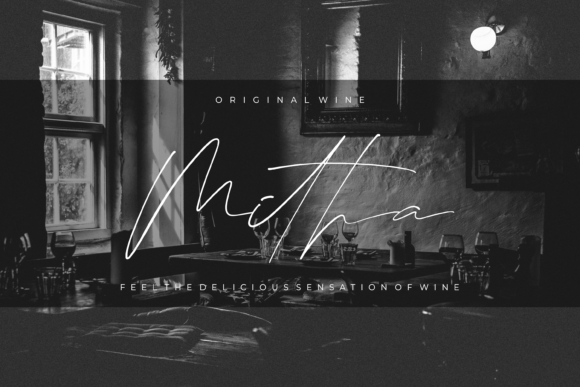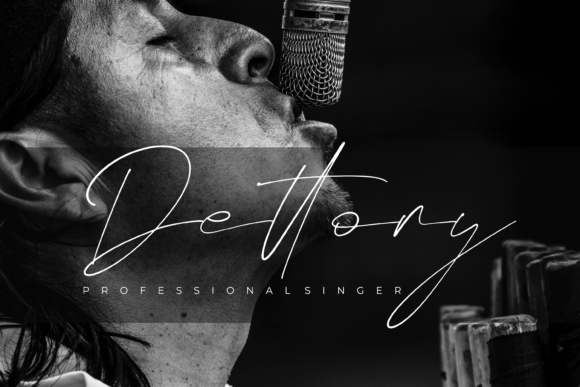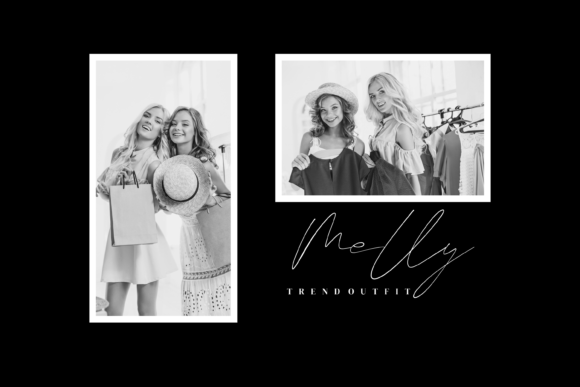
About Black Matteo Font
Black Matteo is a stylish and delicate script font. It has a clean, thin and smooth vibe and it will be a hit for any design that you want to add it to. Black Matteo is PUA encoded which means you can access all glyphs and swashes with ease!